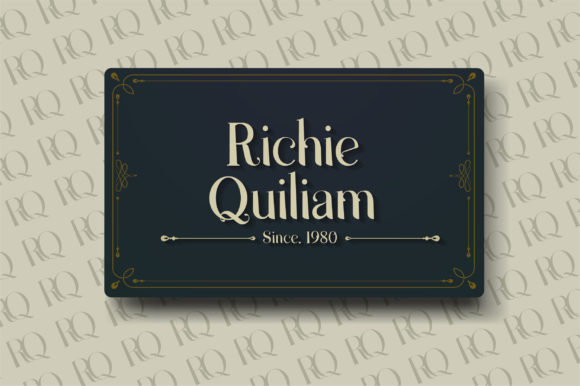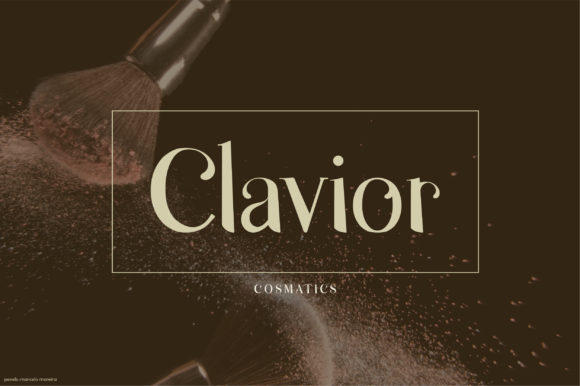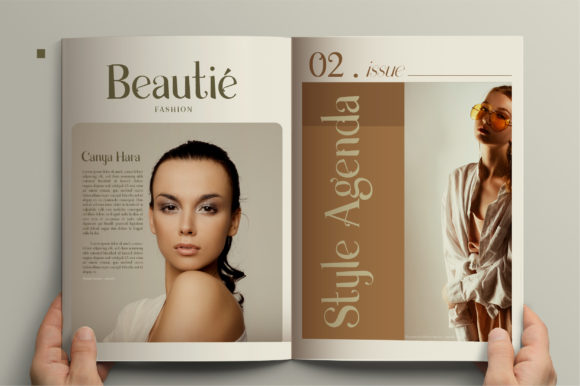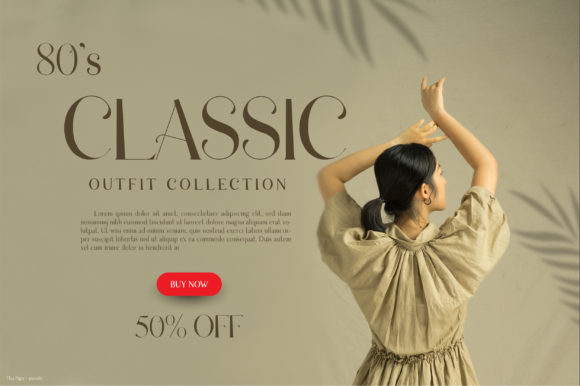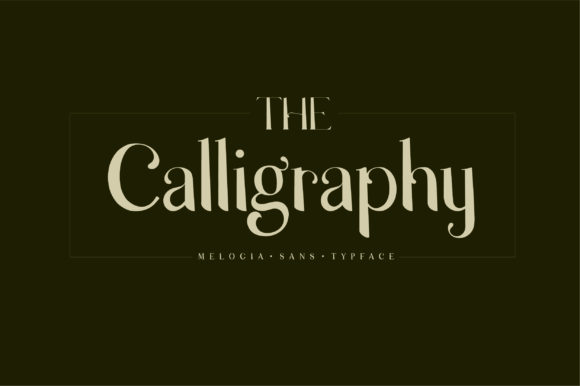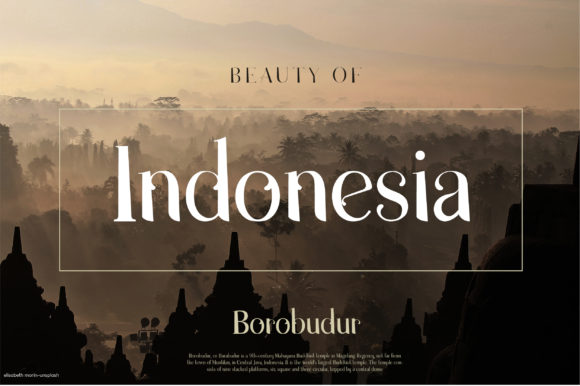
Introduction to Melogia Font
Melogia is a modern and delicate serif font.
Fall in love with its authentic feel and use it to create gorgeous wedding invitations, beautiful stationary art, eye-catching social media posts, and cute greeting cards .
Key Features of Melogia Font
Why Choose Melogia Font?
Melogia Font offers exceptional quality and versatility, making it a valuable addition to your design toolkit. Whether you’re creating for personal projects or commercial use, Melogia Font delivers professional results.